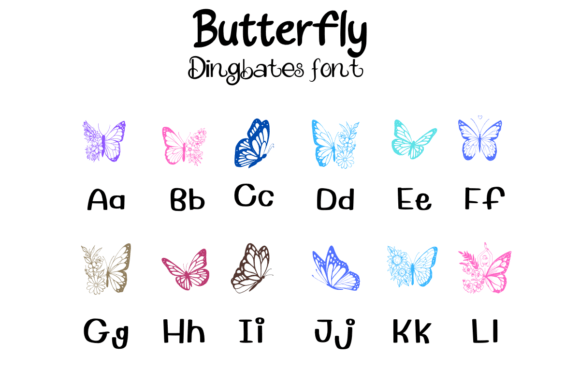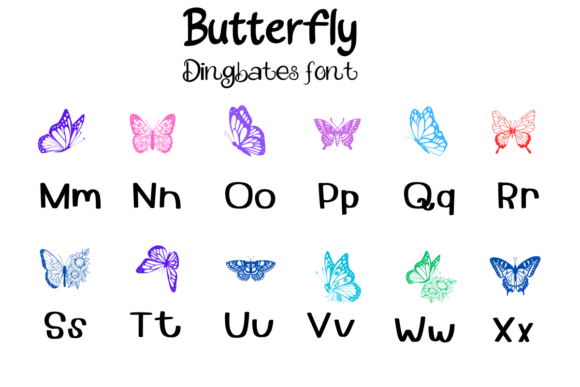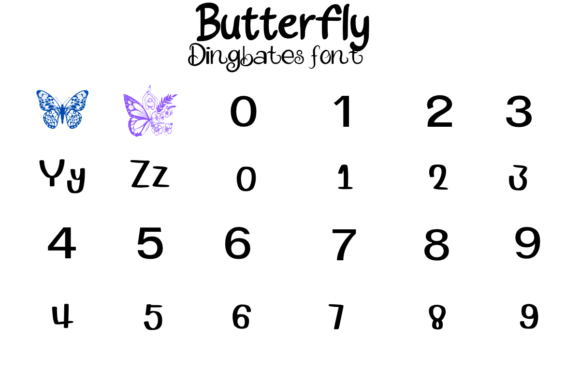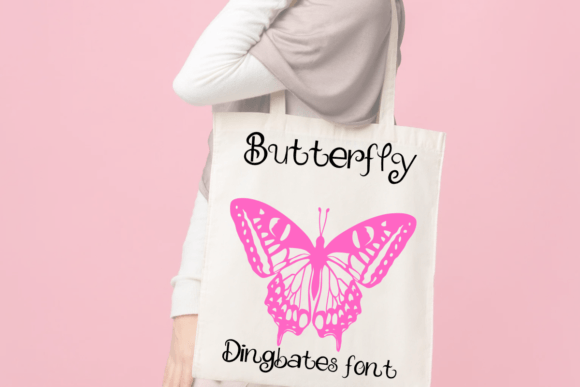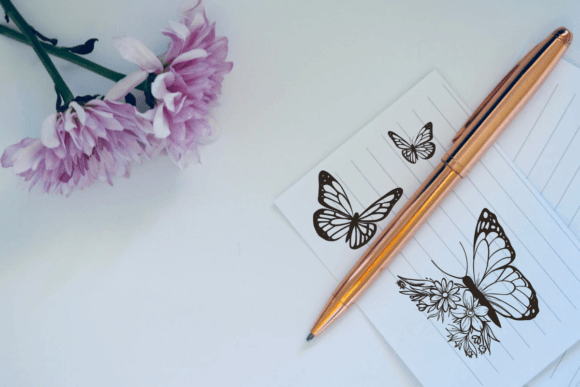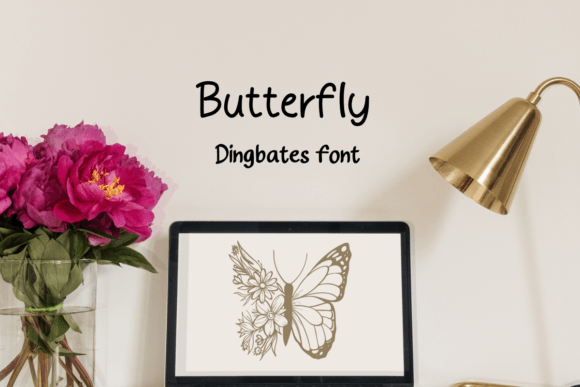
Enter the enchanting Butterfly Font, a delightful dingbat font that’s bursting with fluttering charm. This whimsical font is perfect for adding a touch of magic to your projects, from invitations to scrapbooks. With its playful illustrations of butterflies, you’ll be able to sprinkle some whimsy into your designs and make them truly unforgettable.
The Butterfly Font is a valuable addition to any designer’s toolkit, offering a unique way to add visual interest and personality to your work. Whether you’re a seasoned pro or just starting out, this font is sure to inspire your creativity and help your designs take flight with beauty and grace.
Key Features of Butterfly Font
- Unique Characteristics: The Butterfly Font features a unique, hand-drawn design with intricate details and subtle flourishes, giving it a distinctive and elegant appearance.
Butterfly Font Review
The Butterfly Font is a whimsical and playful font that can add a touch of elegance to any design. ✨ Its delicate lines and rounded edges evoke a sense of lightness and airiness, making it perfect for projects that require a touch of whimsy. ✨
- ✨ Unique and playful design that adds a touch of elegance
- ✨ Delicate lines and rounded edges for a light and airy feel
- ✨ Suitable for a wide range of projects, from branding to editorial design
- ⚠️ Limited legibility at smaller font sizes, which can make it difficult to read
- ⚠️ May not be suitable for projects that require a strong, bold font
- ⚠️ Some users may find the font too delicate or dainty
The Butterfly Font is a charming and versatile font that can add a touch of personality to any design. While it may have some limitations, it’s a great choice for projects that require a light and airy feel. With some careful consideration of font size and usage, the Butterfly Font can be a valuable addition to any designer’s toolkit.
Use the Butterfly Font for creative and whimsical designs.
Pair it with pastel colors and floral patterns for a dreamy effect.
Experiment with different font sizes and styles to add visual interest.
The Butterfly Font is perfect for:
Children’s book illustrations and storybooks.
Floral and garden-themed designs.